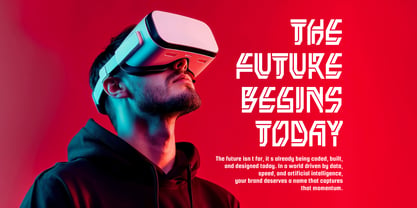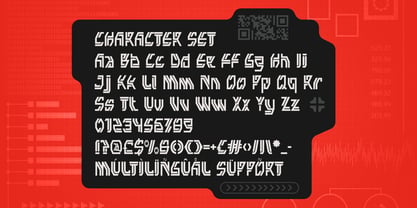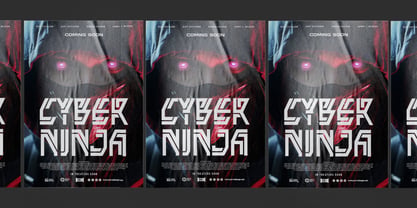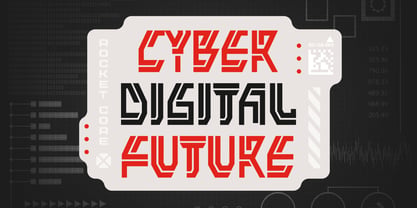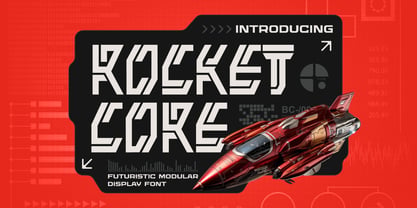
Rocket Core
The Rocket Core Font Family was designed by Yesie Erma Yunita and published by Shanaf. Rocket Core contains 1 styles. More about this family
Rocket Core Futuristic Modular Display Font is a bold, high-tech typeface inspired by the aesthetics of advanced machinery and space innovation. Its geometric letterforms feature sharp edges, straight lines, and modular cuts that create a sense of mechanical precision and forward motion. Each character is built with a structured rhythm, combining angular symmetry and clean segmentation that mirrors digital circuits and spacecraft panels. The font’s tall, uniform proportions and consistent line weight give it a powerful, cohesive appearance. Rocket Core Futuristic Modular Display Font embodies the visual language of technology, speed, and innovation—perfect for modern design that pushes the boundaries of the future. This font is ideal for futuristic branding, sci-fi movie titles, technology posters, video game covers, digital interfaces, and cyberpunk visuals. It’s also perfect for logo design, magazine headlines, and promotional materials that need a strong, tech-driven identity. The modular system allows for dynamic composition, giving designers creative flexibility for impactful layouts. Rocket Core Futuristic Modular Display Font delivers the perfect fusion of science fiction and design precision—ready to launch your project into the digital frontier.